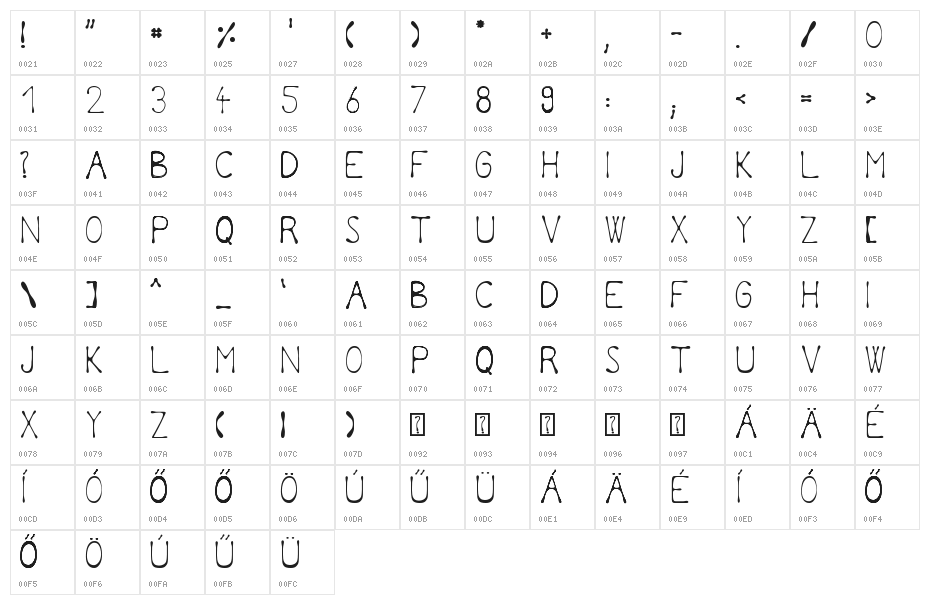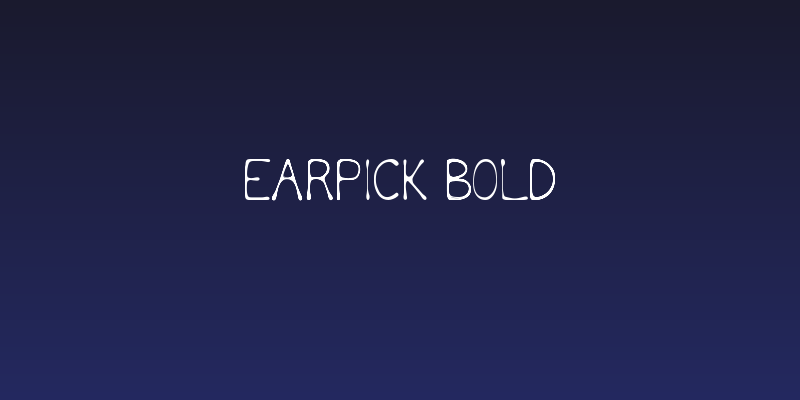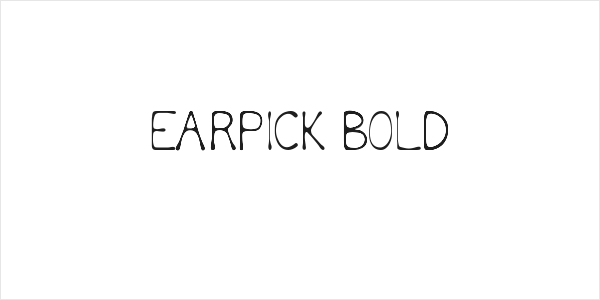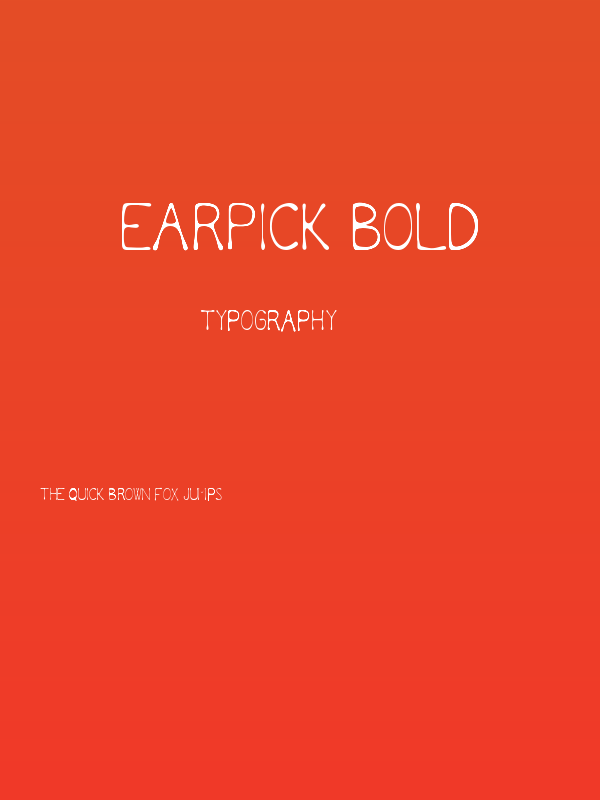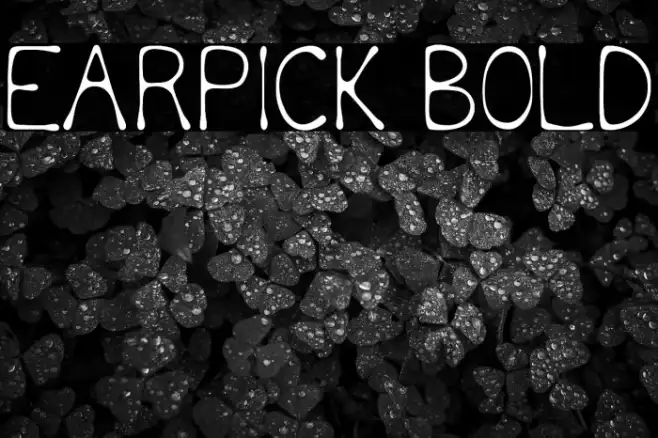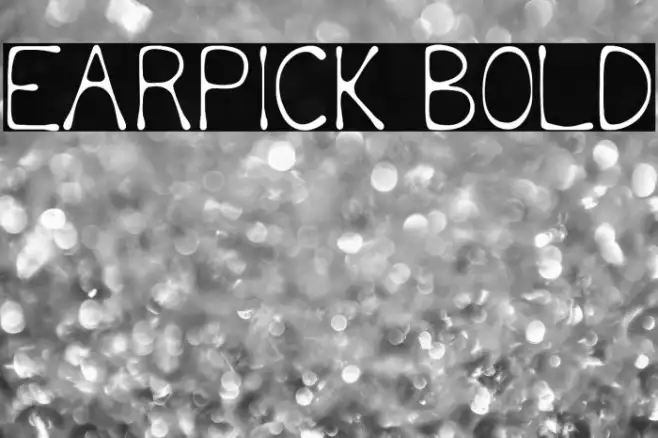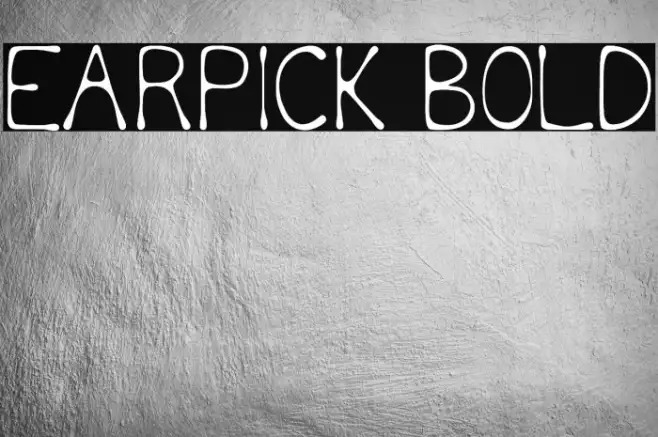
Earpick Bold Font
Earpick Bold Description
This font features a playful and whimsical style with a hand-drawn appearance. The characters are bold and rounded, with a unique, organic flow that gives them a lively and informal feel. The strokes vary in thickness, adding to the font's dynamic and energetic character. The overall design is reminiscent of handwriting, with a casual and approachable vibe. This font is ideal for projects that require a fun and engaging look, such as children's books, greeting cards, or playful branding.
| Proposed Projects | Ideal for children's books, greeting cards, playful branding, and informal invitations. |